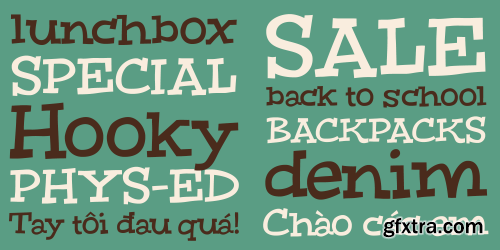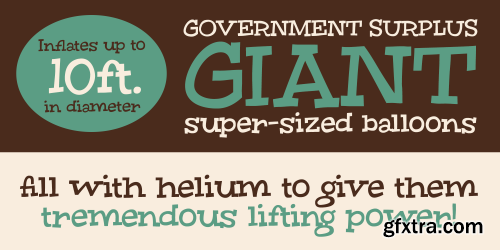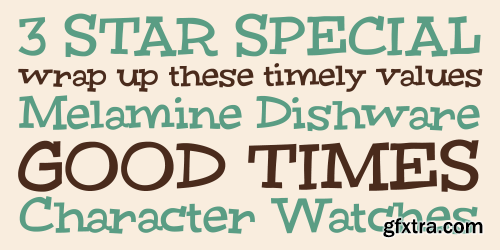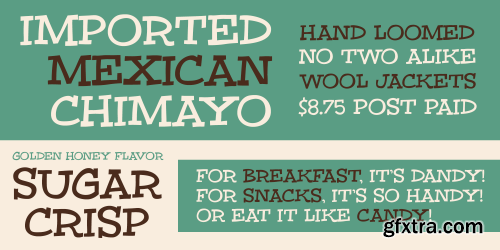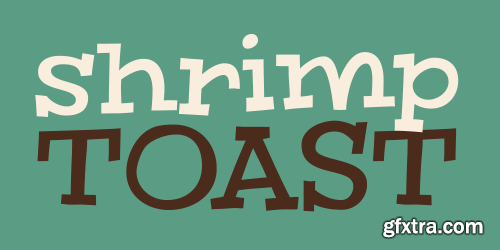
Shrimp Toast Font
- Give your stiff, bland lunchtime layouts a dash of whimsy with Shrimp Toast! Boring breakfasts? Dull dinners? Yup, Shrimp Toast will lighten and brighten even the most mundane menus, brochures, and publishing designs.